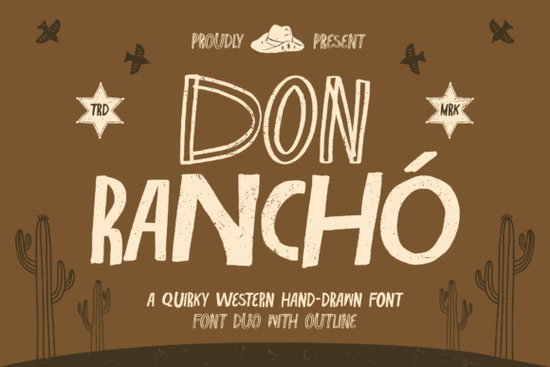
If you are looking for typography that feels authentically handcrafted, the Don Rancho Font brings a raw, rustic energy to your projects. Inspired by desert landscapes, vintage ranch signage, and Mexican street typography, this quirky western display font captures the imperfect charm of hand-drawn lettering. It is especially useful for print-on-demand sellers and small business owners who need their branding to stand out with a bold, handmade casualness.
What makes this western display font stand out?
The design captures the raw, handmade casualness of traditional sign painting. Instead of perfectly clean lines, you get rough edges and expressive character forms that feel genuinely human. Because it comes as a font duo, you receive both a bold rough style and a matching outline version. This pairing allows you to create layered designs effortlessly. You can use the solid version for your main text and the outline for a subtle background effect or a striking shadow layer. The playful shapes give it a unique personality that feels both nostalgic and fresh, avoiding the stiff look of standard digital typefaces.
Where should you use rustic typography in your projects?
This typeface is highly versatile for anyone working with desert-themed graphics or vintage aesthetics. It works exceptionally well for a variety of commercial and personal projects:
- Western branding and Mexican restaurant logos that need an authentic, localized feel to connect with local customers.
- Food packaging and coffee shop identities looking for a warm, inviting touch that highlights artisanal quality.
- Vintage posters and apparel designs that rely on bold, eye-catching lettering to grab attention on a crowded shelf.
- Rustic packaging for craft goods, hot sauces, or small-batch beverages that want to emphasize their handmade origins.
When you pair it with other textured styles, like the Sunday Grunge typeface, you can build a cohesive visual identity for a brand that thrives on a gritty, lived-in aesthetic.
How does it compare to other display typefaces?
Choosing the right lettering depends on the specific mood you want to convey. If your project leans more toward a spooky or Halloween theme, you might prefer something like the Crimson Horror style, which offers a much darker, distressed vibe. On the other hand, if you are designing a fun, retro diner menu or a playful summer campaign, a bubbly option like Cookie Soda could be a better fit. For a cleaner, more modern sans-serif look that still holds some personality, the Quinn family provides a neat contrast to the rough edges of our main feature.
What are the best tips for pairing and styling?
Because the letterforms are highly expressive and feature a lot of visual weight, it is best to pair them with a simple, clean sans-serif for your body text. This ensures readability while letting the main headings shine. Color choices also matter greatly. Earthy tones like terracotta, mustard yellow, and sage green complement the desert-inspired roots perfectly. When designing logos, try overlapping the solid and outline versions slightly to create a 3D effect. For apparel, keep the design relatively small on the chest or go large on the back with a distressed texture overlay to enhance the vintage ranch feel.
Quick styling checklist for your next layout
- Test the outline version behind the solid version to check for visual balance and readability.
- Pair the display letters with a basic, highly legible font for paragraphs and fine print.
- Apply a subtle halftone or noise texture to match the desert-inspired theme and add depth.
- Check the kerning manually, as hand-drawn styles sometimes need minor spacing adjustments in longer words.
Take a few minutes to experiment with the tracking and leading in your design software before finalizing your layout. This small step ensures your handcrafted lettering looks intentional, polished, and ready for print or digital use.